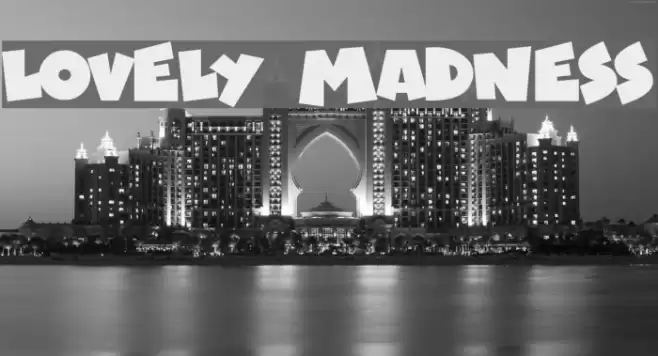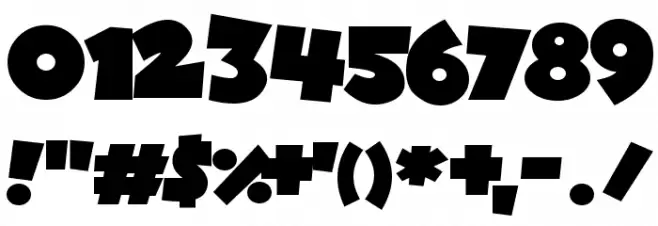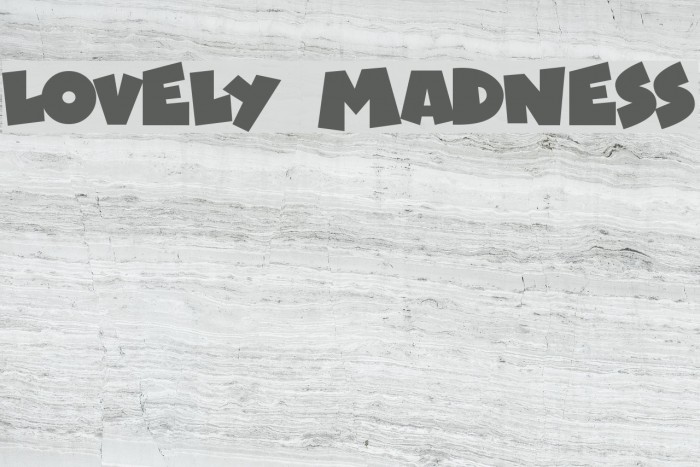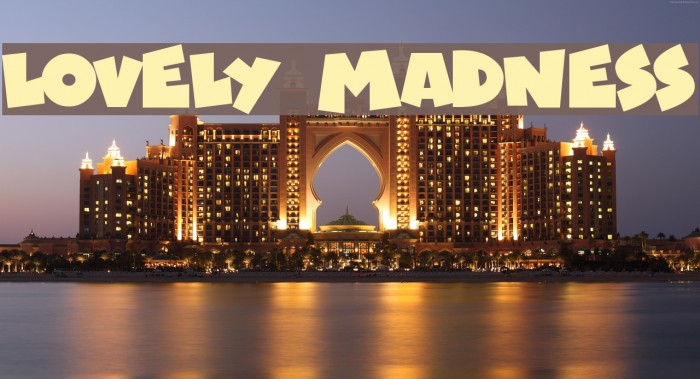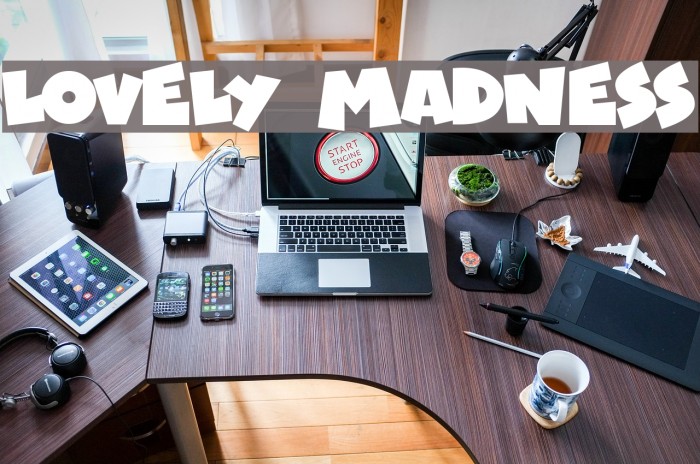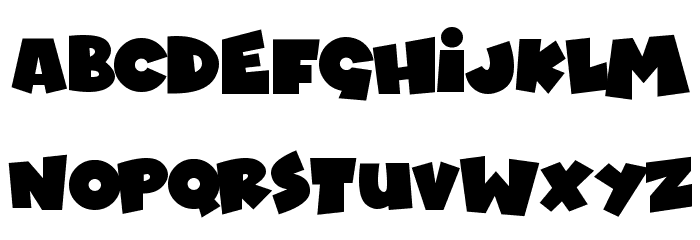
Lovely Madness Font
Lovely Madness Description
This playful and bold font features a whimsical and cartoonish style, characterized by its exaggerated and irregular shapes. The letters are thick and chunky, with a dynamic and energetic appearance that gives a sense of movement and fun. The uppercase and lowercase letters maintain a consistent style, with rounded edges and a slightly uneven baseline that adds to its quirky charm. The numbers and special characters follow the same playful design, making the font suitable for creative and informal projects.
A bold, playful font with a whimsical and cartoonish style from Uncategorized fonts.
- Proposed Projects: Ideal for children's books, comic strips, playful branding, party invitations, and any project requiring a fun and energetic typeface.
- Overall Style: Playful, Cartoonish
- Use Case: Headlines, Posters, Logos